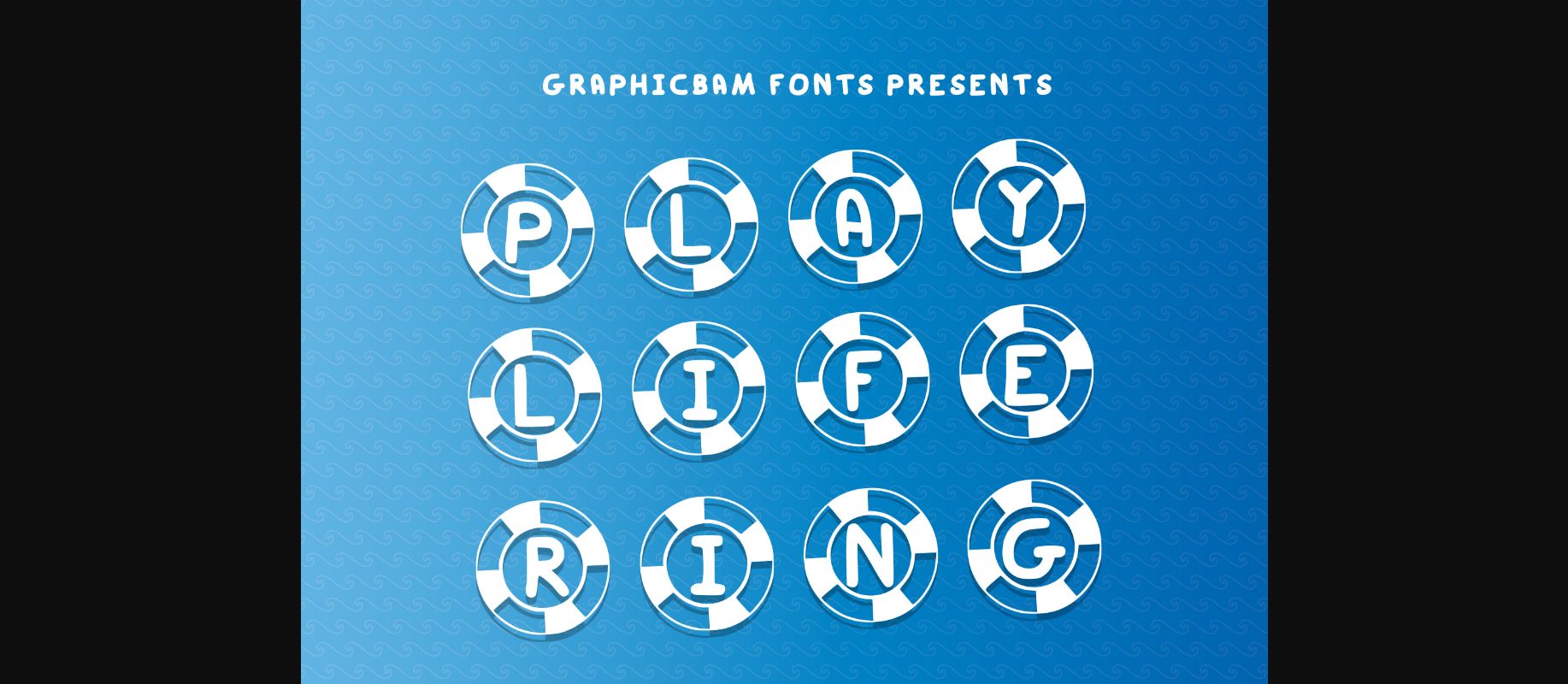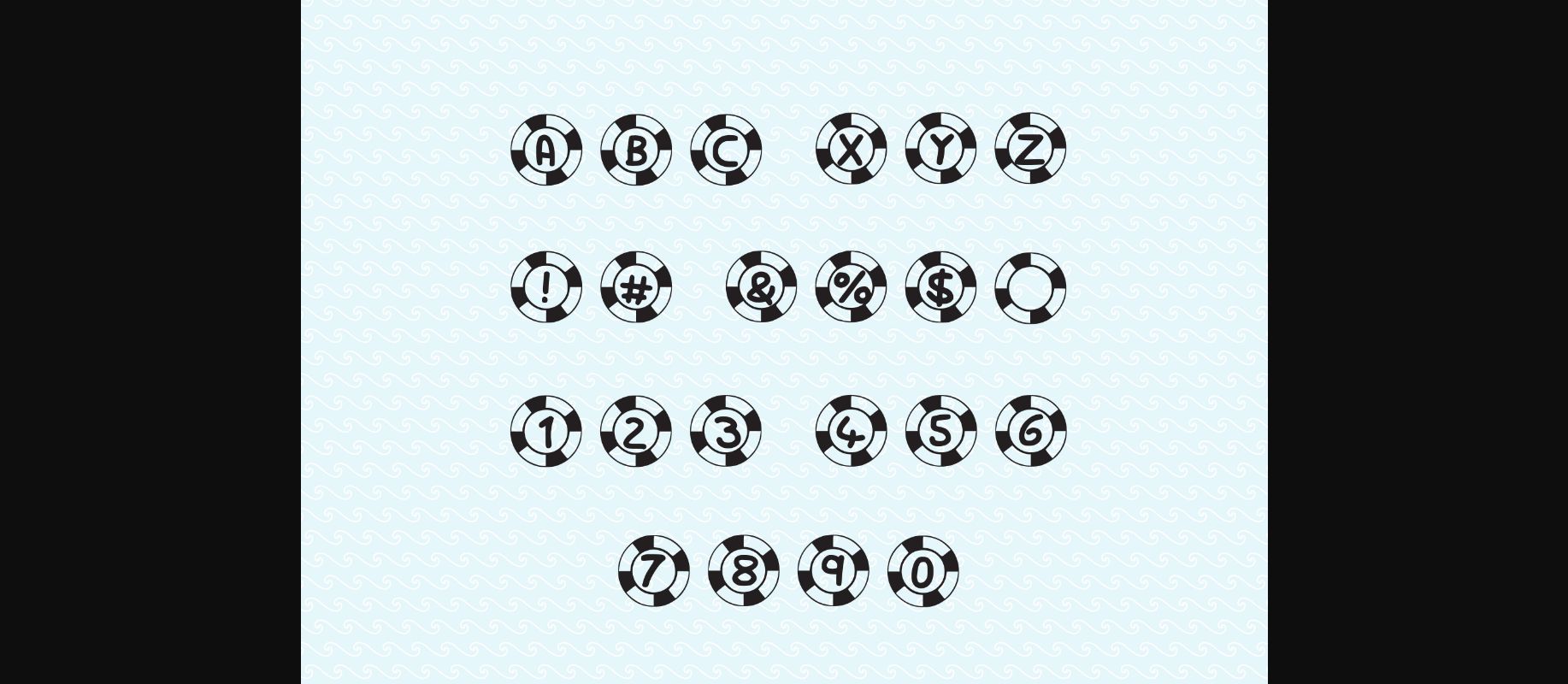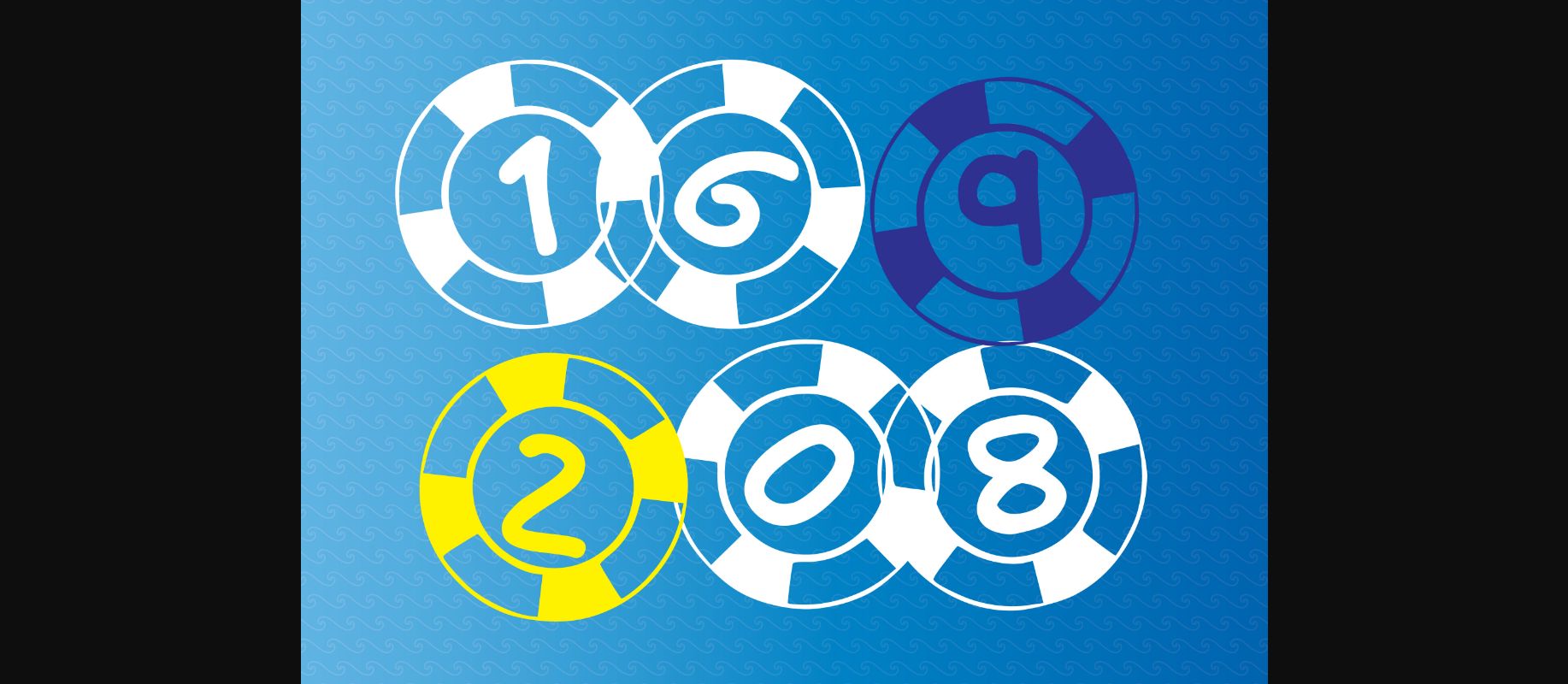
About Play Life Ring Font
Play Life Ring is a set of life rings with a playful, child-like decorative font perfect to spell out anything to do with the sea, beaches, and water. Handwritten with rounded sides make it a friendly and joyful font. Great for schools, home teaching, or a craft project.